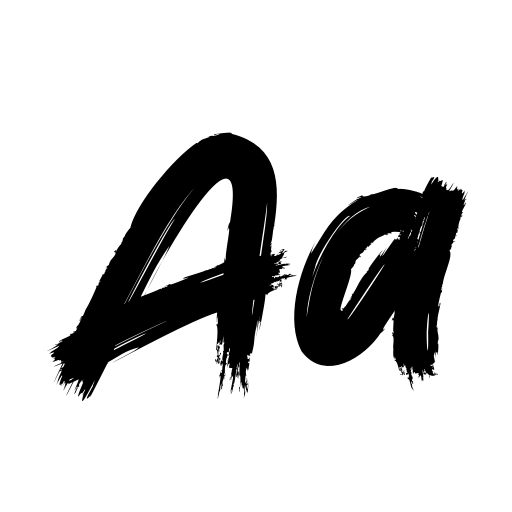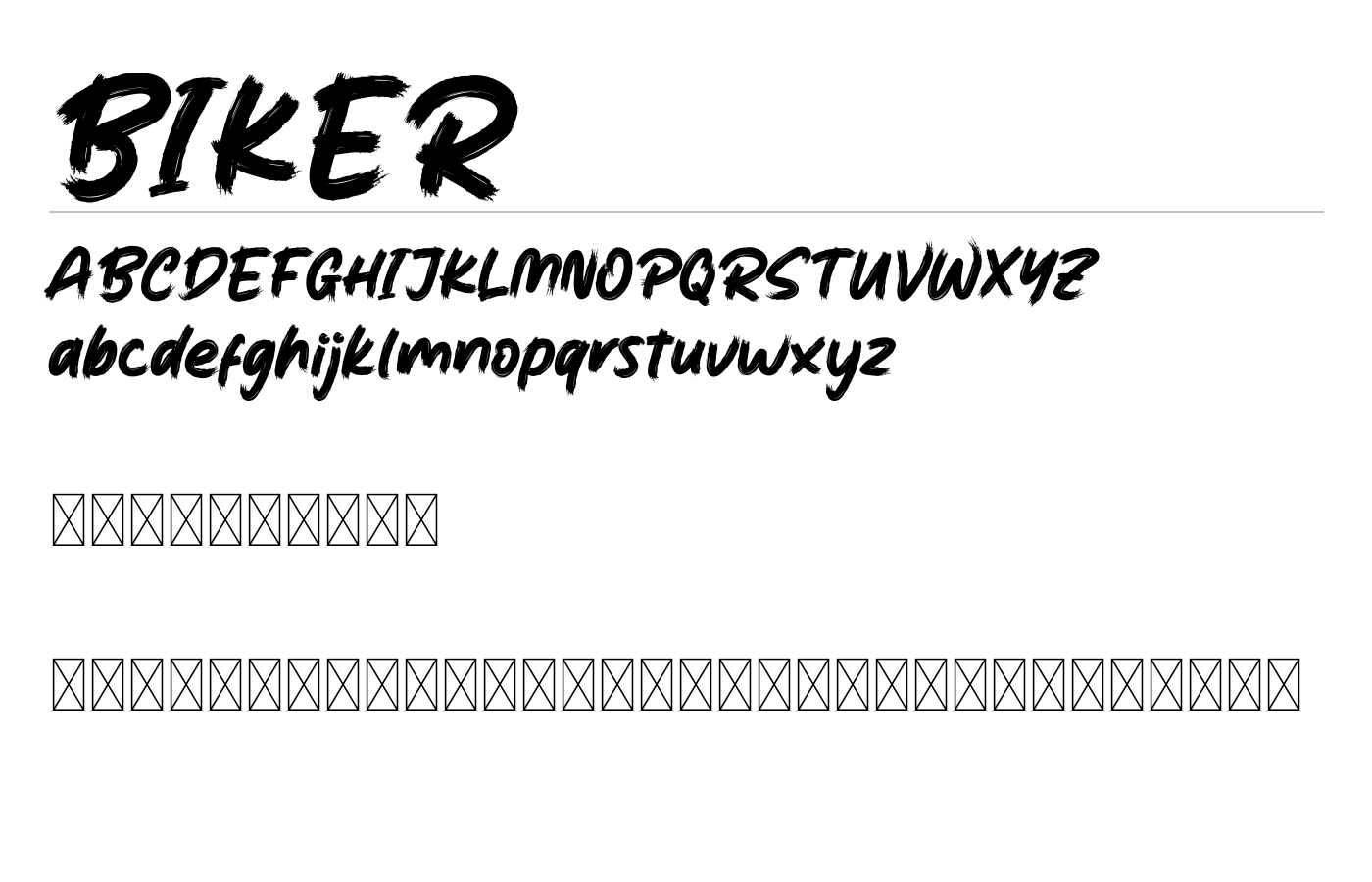
BIKER is a bold, brush-style script font that exudes energy and a raw, hand-painted feel. Its thick, textured strokes and irregular edges give it a rebellious, dynamic personality, making it perfect for designs that need a strong, informal, and edgy vibe. This font works great for logos, posters, and branding where a rugged, artistic touch is desired.
BIKER Font